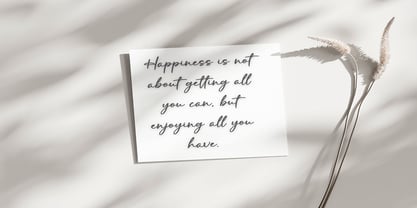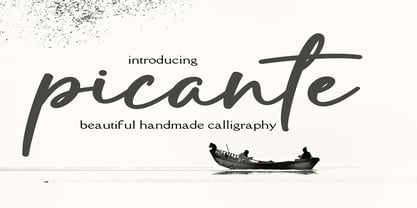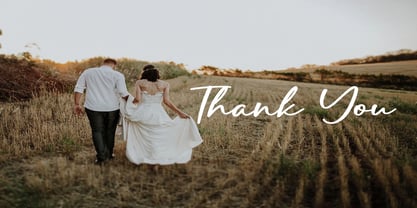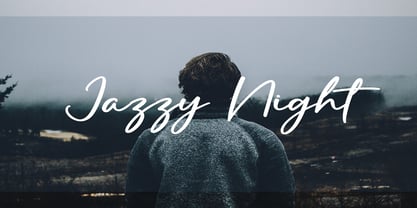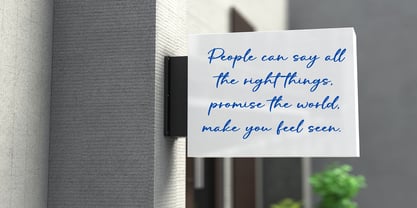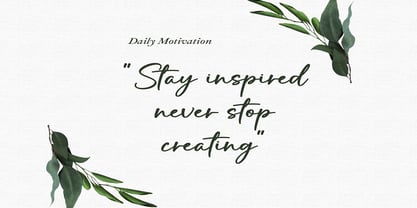
Picante
by Dream Font
The Picante Font Family was designed by Ray Baker and published by Dream Font. Picante contains 1 styles. More about this family
Picante is a whimsical and elegant handwritten font that captures the relaxed yet sophisticated charm of a beachside retreat. Inspired by the fluidity of handwritten script and the carefree spirit of coastal living, this font blends legibility with artistic flair. Each character features delicate, flowing strokes reminiscent of sea breezes and sandy shores, making it perfect for adding a personal touch to invitations, greeting cards, or any design that calls for a touch of refined spontaneity.